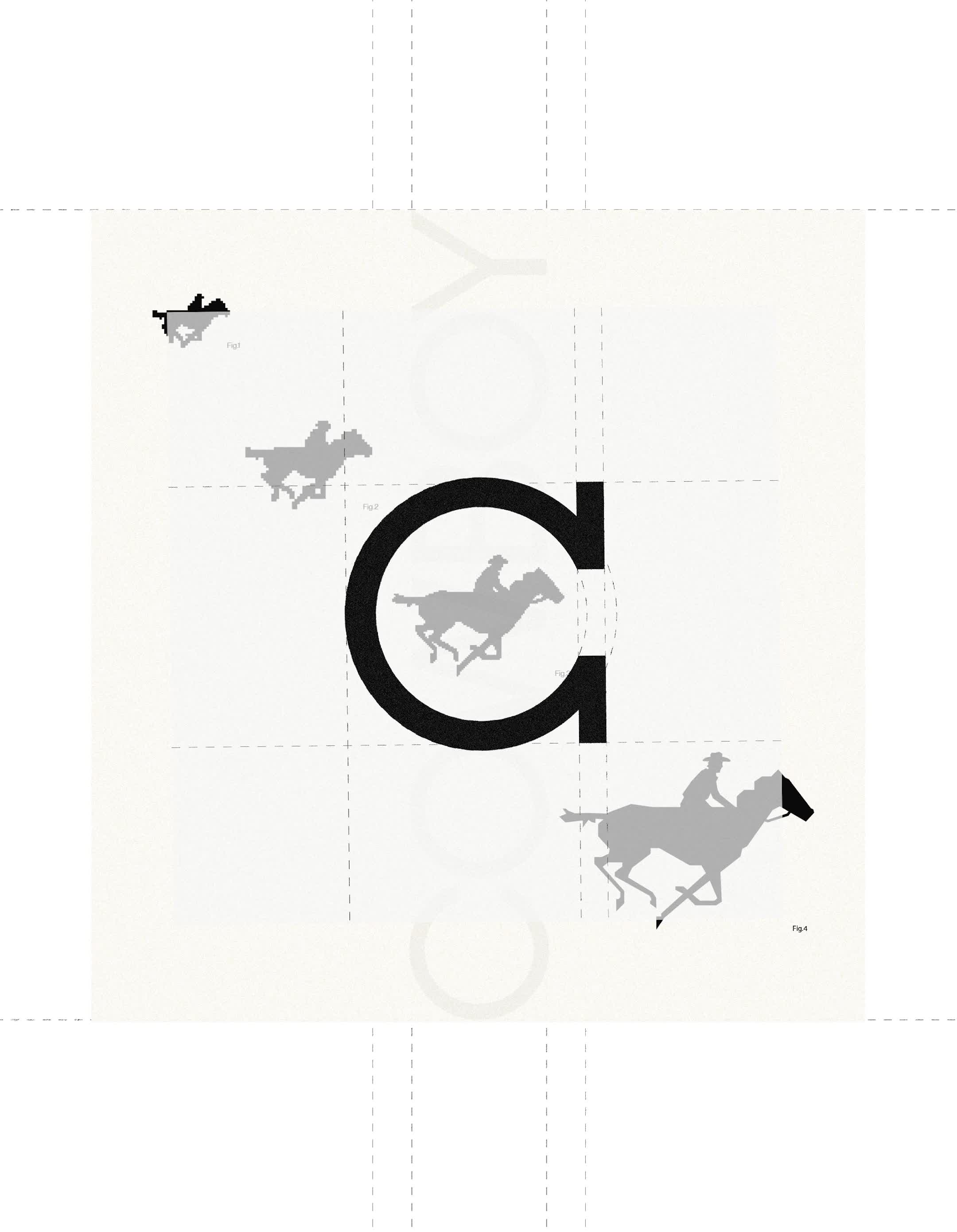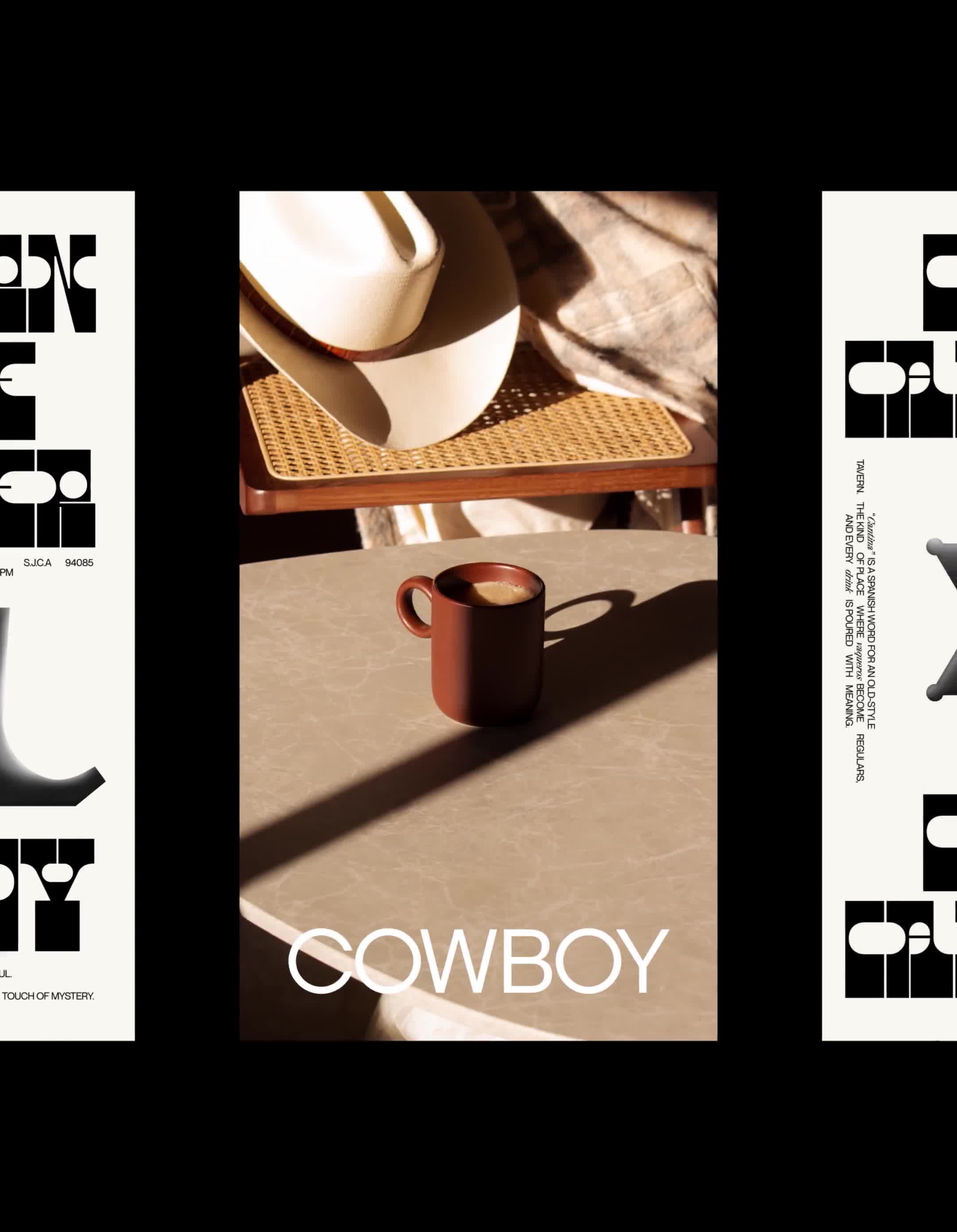
COWBOY
COWBOY coffee turns the cowboy into sharp geometric forms instead of Western clichés. The abstracted profile becomes their entire illustration system. PP Neue Montreal + Dinamo Synt keeps the type modern while the monochrome palette references actual Western heritage.